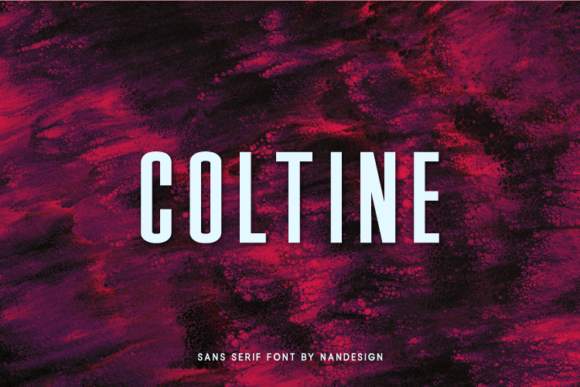
The Ultimate Guide to Coltine Font: Elevate Your Designs with This Stunning Sans Serif
Ah, the elusive perfect font. You know, that one that makes your design project shine like a superstar ✨. I recall a particularly frustrating design session where I was working on a client’s branding project, and no matter how hard I tried, I just couldn’t find the right font to match their sleek and modern vibe. That was until I stumbled upon Coltine Font. In this article, we’ll dive into the world of Coltine Font, exploring its features, how to use it, and what makes it a great addition to your design toolkit.
A Personal Review: What I Love About Coltine Font
So, what makes Coltine Font so special? Here are a few things that I absolutely love:
- ✨ Clean and modern design: Coltine Font boasts a sleek, sans serif design that’s perfect for modern projects.
- ✅ Versatility: Its clean and thin lines make it suitable for a wide range of design applications, from digital projects to print materials.
- 💡 Ease of use: Coltine Font is incredibly easy to read, even at smaller font sizes.
While Coltine Font is an excellent choice for many design projects, there are a few minor quirks to be aware of:
- 🤔 Limited glyphs: Coltine Font has a relatively limited character set, which might not be ideal for projects requiring a wide range of special characters.
- ⚠️ Not suitable for body text: Due to its thin lines, Coltine Font might not be the best choice for lengthy body text, especially in smaller font sizes.
The Story Behind Coltine Font
Coltine Font was designed with the goal of creating a clean, modern sans serif font that would complement a wide range of design projects. Its creator drew inspiration from the urban landscape and the need for a font that would be both elegant and highly legible. The result is a font that’s both versatile and visually stunning.
| Font Name | Coltine Font |
| Author | Nan Design |
| What is Coltine Font? | Coltine Font is a modern sans serif font designed for use in a wide range of design projects, from digital applications to print materials. |